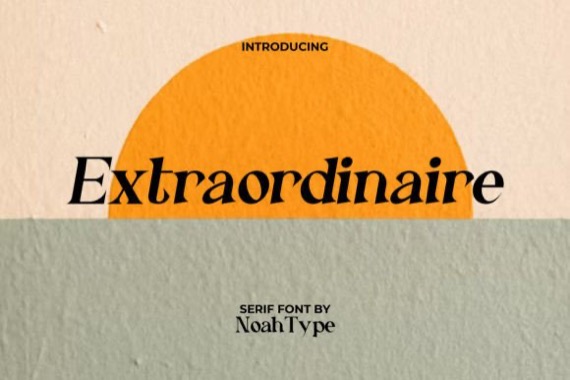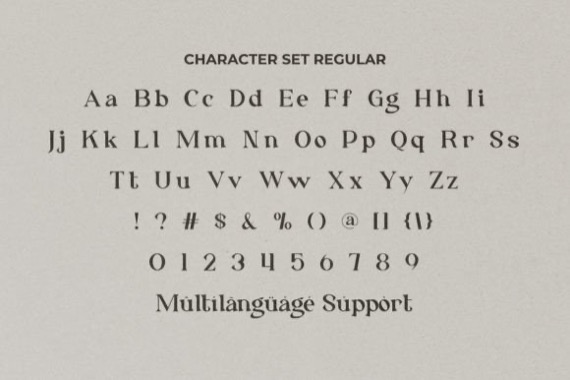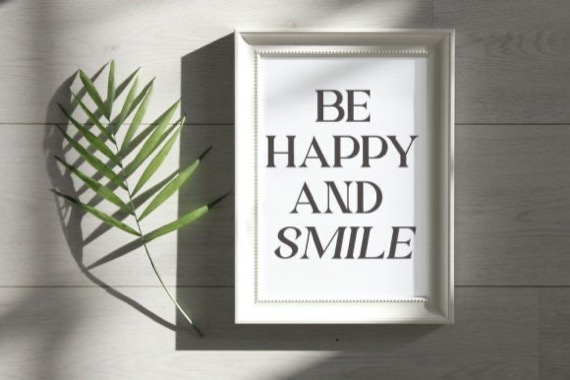
Extraordinaire is a stylish modern serif font that was created and shared by NoahType with two styles, Regular and Italic. This font has elegant lines that can be used in any type of project, including casual and stylish. It will be the best choice for many industries, such as artist, café, boutique, cosmetic, event tenant, fashion, florist, handicrafts, photography, printing, publishing, real estate, restaurant, spa salon, and more!
Extraordinaire Serif Font